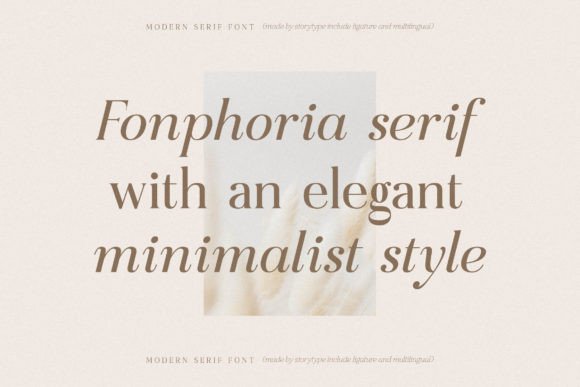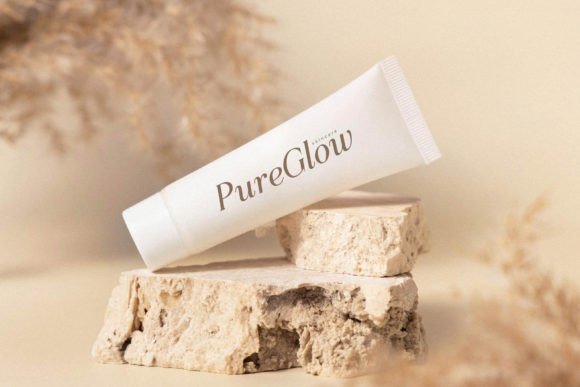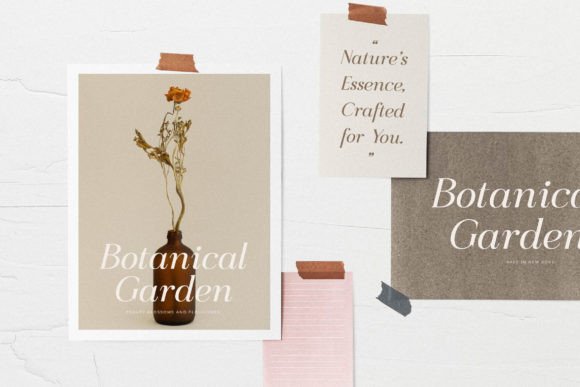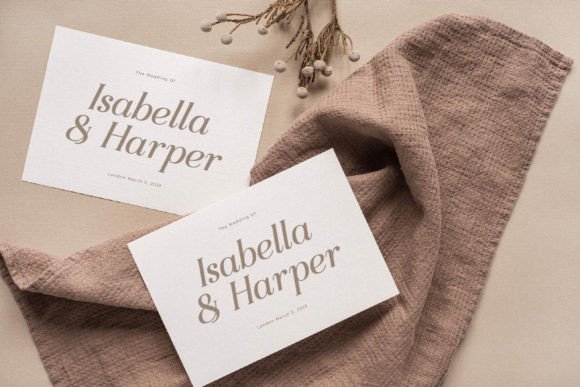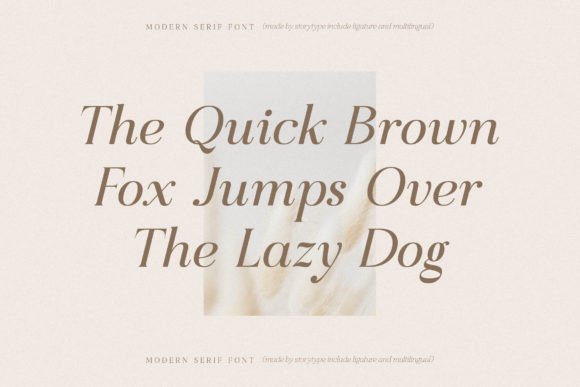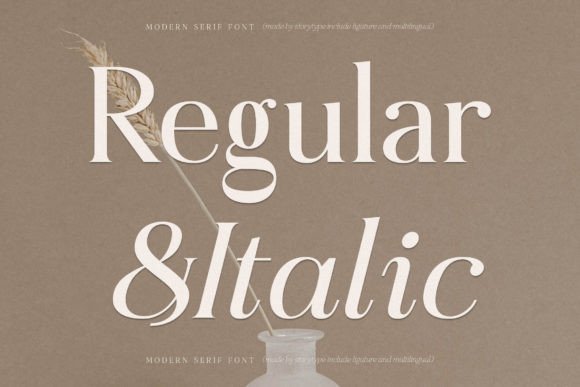
Introduction to Fonphoria Font
Proudly present Fonphoria Typeface , created by Storytype, A serif modern and classic typeface that has own unique style & modern look.
This typeface is perfect for an elegant & luxury logo, book or movie title design, fashion brand, magazine, clothes, lettering, quotes, and so much more .